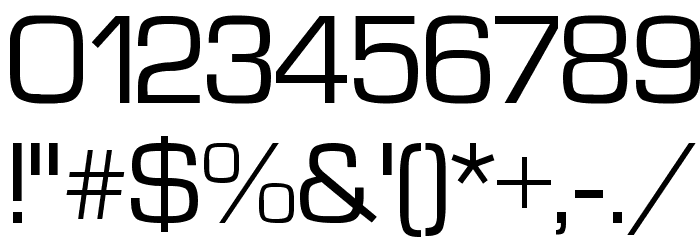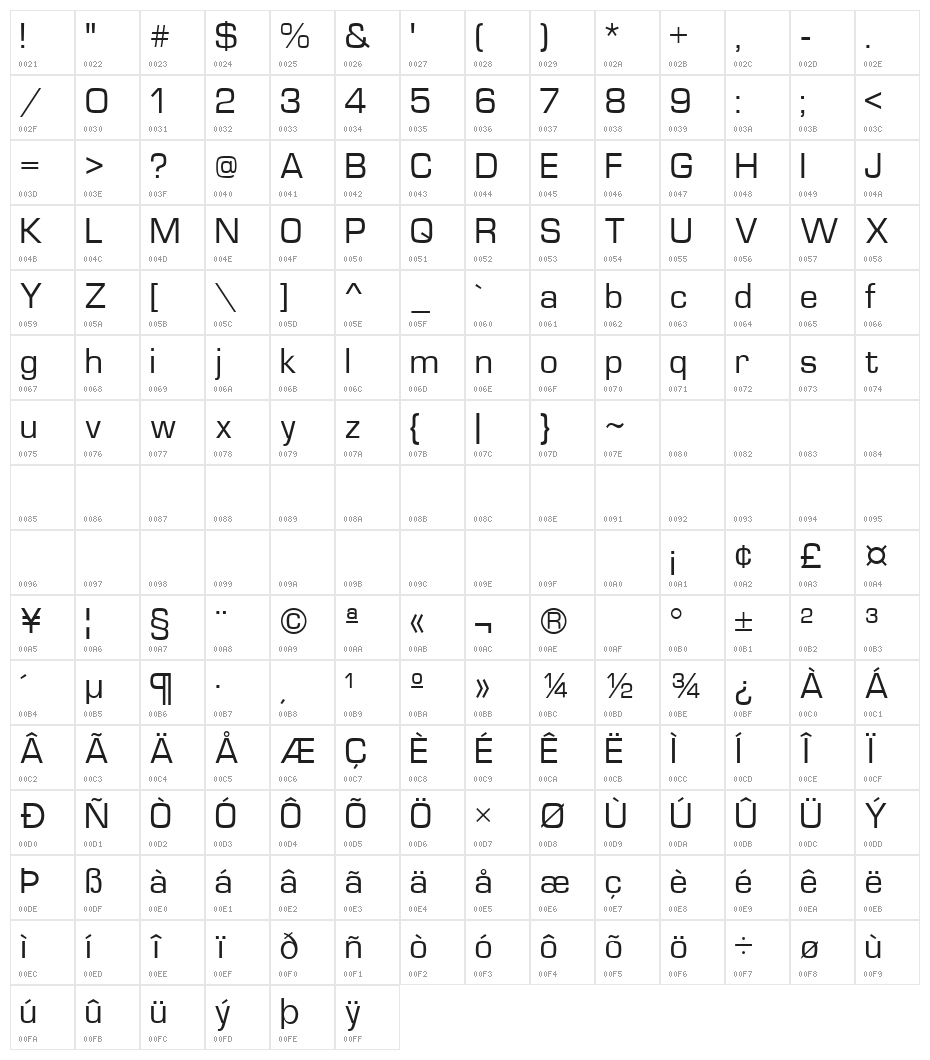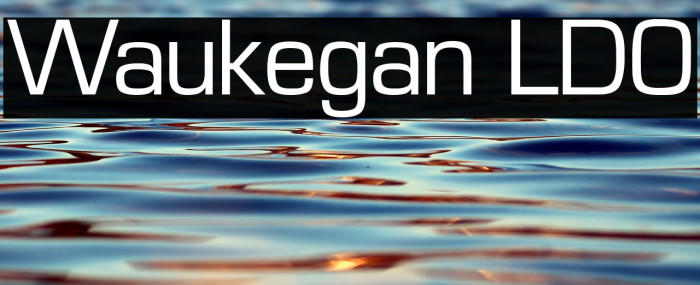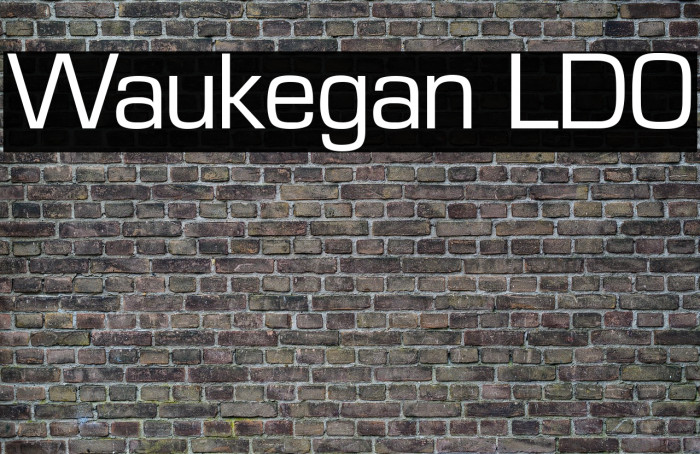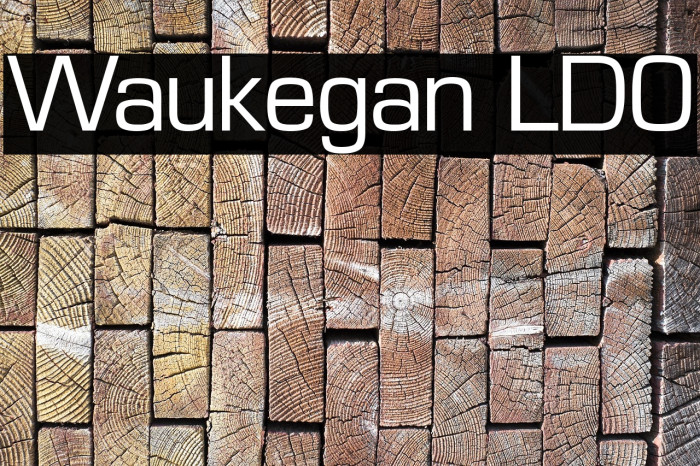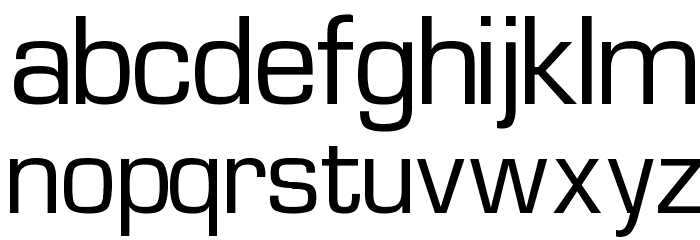
Waukegan LDO Font
Waukegan LDO Description
This font features a clean and modern sans-serif design with a geometric structure. The characters are uniform in width, providing a balanced and harmonious appearance. The uppercase letters are bold and impactful, while the lowercase letters maintain a consistent height, enhancing readability. The numerals are clear and distinct, making them suitable for various applications. Special characters are well-defined, adding versatility to the font. The overall style is sleek and professional, ideal for contemporary design projects.
| Proposed Projects | Ideal for branding, corporate materials, digital interfaces, and editorial design. |